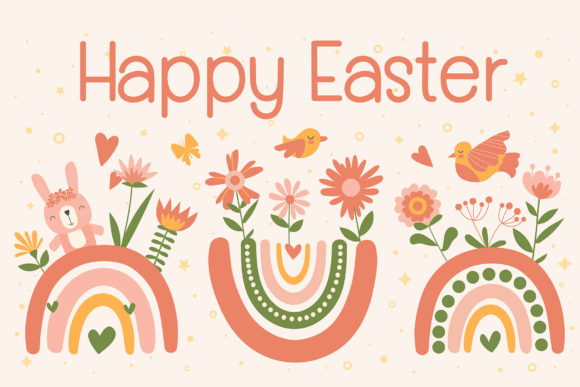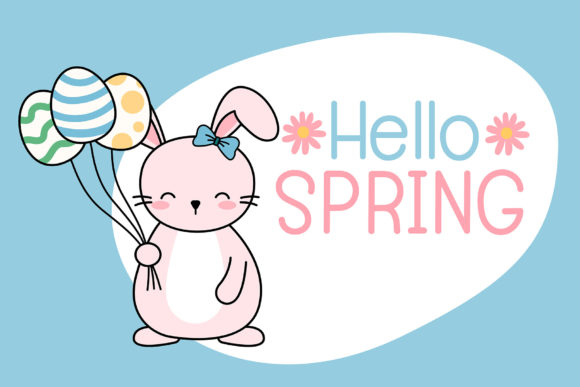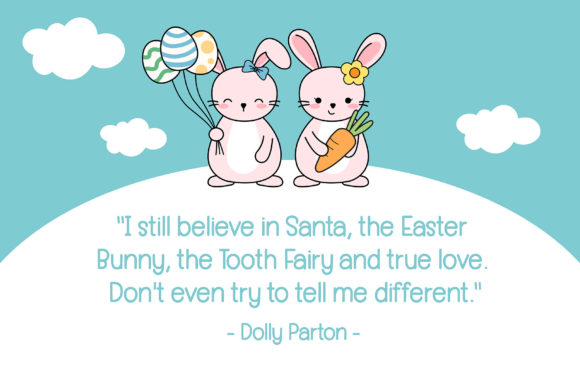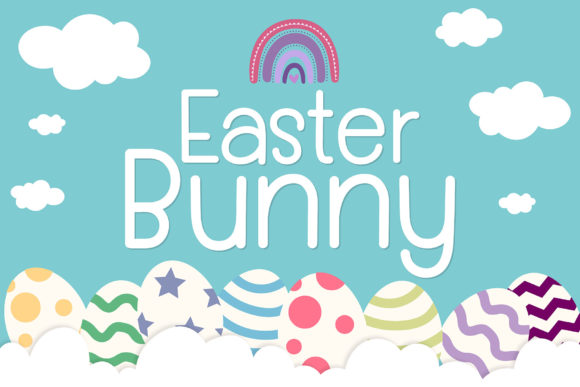
Easter Bunny Font: The Perfect Addition to Your Easter Projects
Are you looking for a fun and playful font to add to your Easter-themed projects? Look no further than the Easter Bunny Font! This cute and simple sans serif font is perfect for a variety of occasions, from children’s projects to branding and advertising. In this article, we’ll take a closer look at the Easter Bunny Font and explore its many uses.
What is Easter Bunny Font?
The Easter Bunny Font is a sans serif font that is designed to be both cute and simple. Its clean lines and rounded edges make it perfect for use in a variety of projects, from children’s books to greeting cards. The font is highly versatile and can be used for both personal and commercial projects.
Uses for Easter Bunny Font
The Easter Bunny Font can be used for a wide range of projects, including:
- Children’s projects: The Easter Bunny Font is perfect for use in children’s books, activity sheets, and other educational materials.
- Blog posts: Add a touch of Easter fun to your blog posts with the Easter Bunny Font.
- Logos and branding: The Easter Bunny Font can be used to create fun and playful logos and branding materials.
- Ads: Use the Easter Bunny Font to create eye-catching ads for your Easter-themed products.
- Invitations: Create adorable Easter invitations with the Easter Bunny Font.
- Greeting cards: The Easter Bunny Font is perfect for use in Easter greeting cards.
- Planners: Add a touch of Easter fun to your planners and organizers.
- Photo albums: Use the Easter Bunny Font to create fun and playful photo albums.
- Decorations: The Easter Bunny Font can be used to create fun and festive decorations, such as Easter egg decorations and bunny-themed signs.
Why Choose Easter Bunny Font?
There are many reasons why you should choose the Easter Bunny Font for your Easter projects. Here are just a few:
- Cute and playful: The Easter Bunny Font is designed to be both cute and playful, making it perfect for Easter-themed projects.
- Highly versatile: The Easter Bunny Font can be used for a wide range of projects, from children’s books to branding and advertising.
- Easy to read: The Easter Bunny Font is a sans serif font, making it easy to read and perfect for use in a variety of projects.
Tips for Using Easter Bunny Font
Here are a few tips for using the Easter Bunny Font in your projects:
- Use it with Easter-themed graphics: The Easter Bunny Font pairs perfectly with Easter-themed graphics, such as Easter eggs and bunnies.
- Experiment with colors: The Easter Bunny Font looks great in a variety of colors, so don’t be afraid to experiment and find the perfect color for your project.
- Use it in combination with other fonts: The Easter Bunny Font can be used in combination with other fonts to create a unique and playful look.
The Easter Bunny Font is a fun and playful font that is perfect for use in a variety of Easter-themed projects. Its cute and simple design makes it highly versatile and easy to read. Whether you’re a designer or crafter, the Easter Bunny Font is a great addition to your font collection. So why not give it a try and see how it can add a touch of Easter fun to your projects?